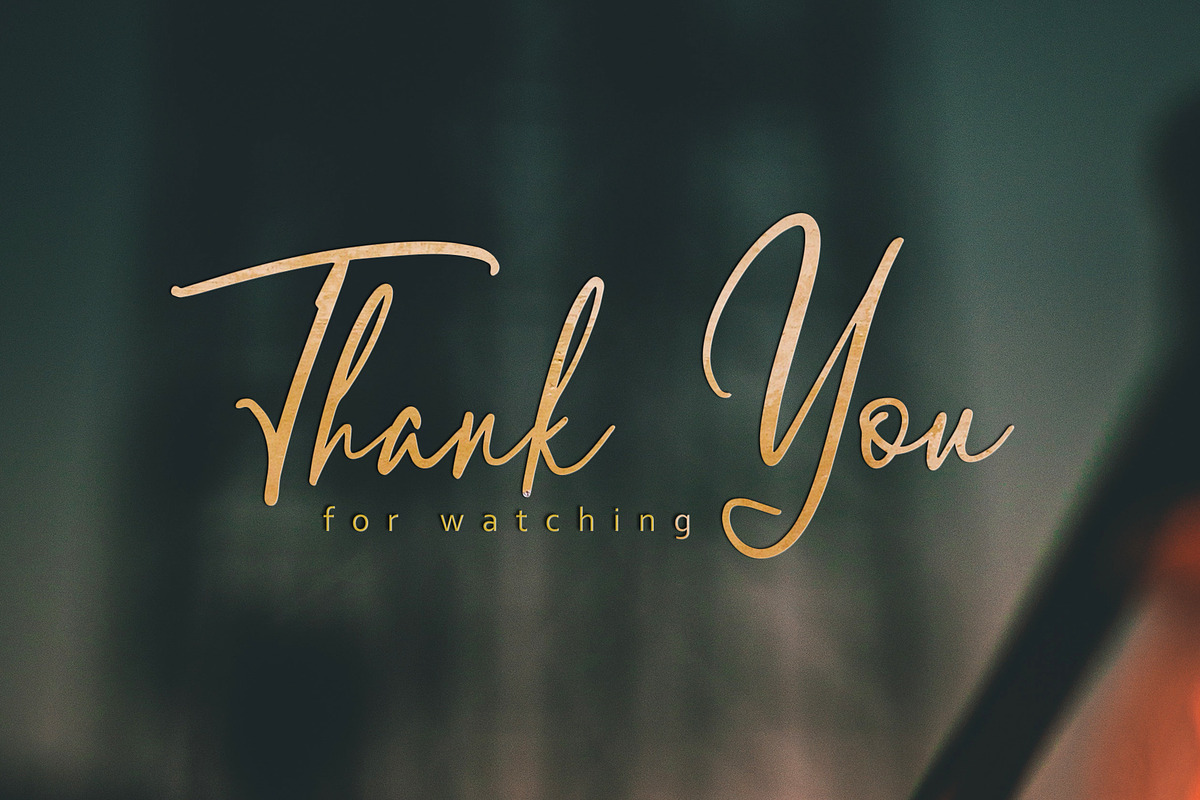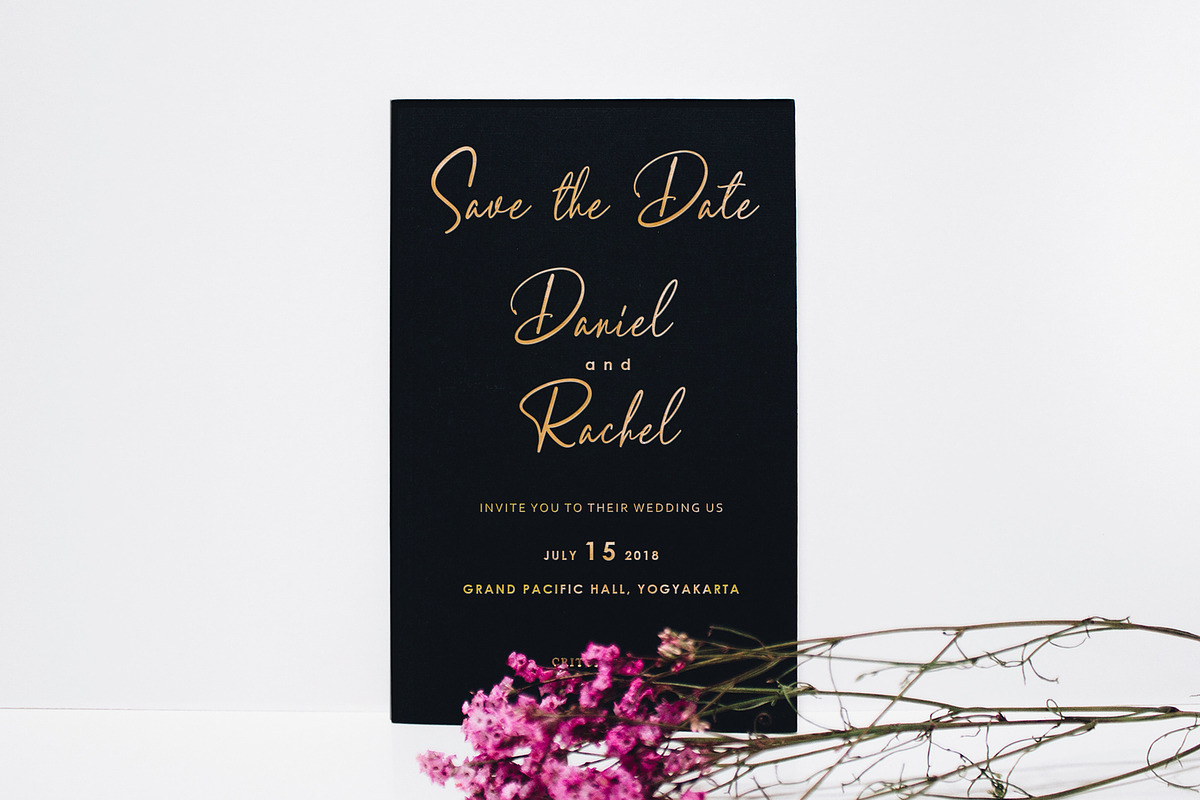
Arthurdale Script
Arthurdale is a elegant script fonts from handwriting caligraphy completely with some beautifull ligature. This matches the font applies in some designs such as the logotype, magazine, website or blog headlines, packaging, branding, qoutes, invitation cards, greeting cards, business cards, and more.
Arturdale Font has lowercase, uppercase, features the numeral, punctuation characters, 40+ ligatures, multilingual support, PUA encoded, contextual alternates and stylistic alternates.